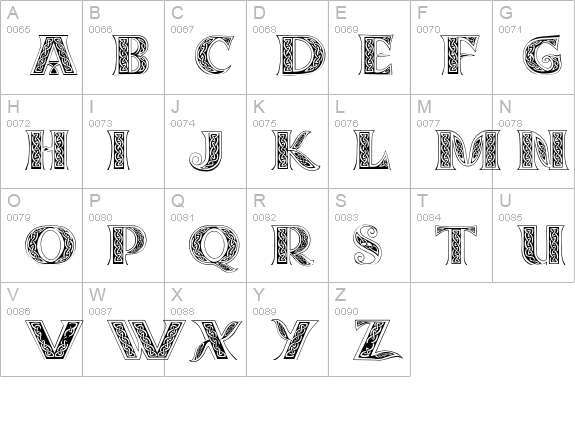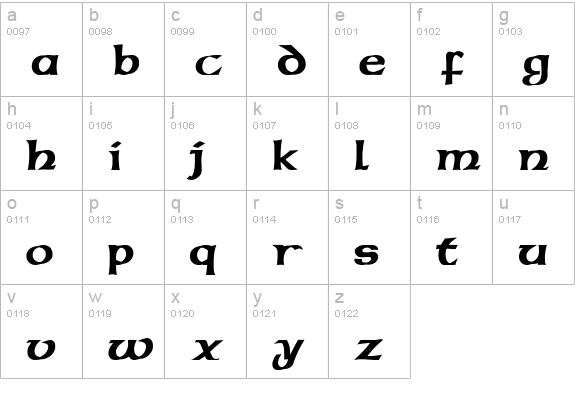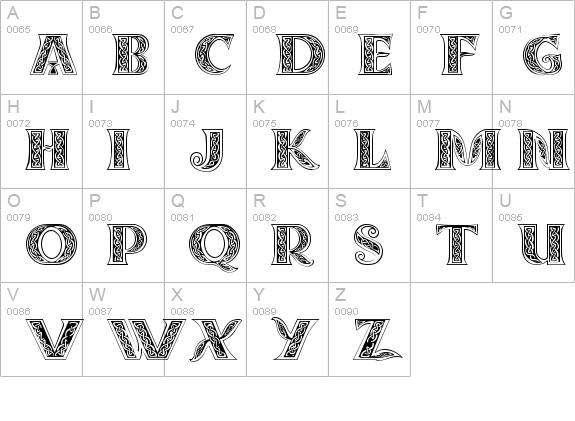
Celticmd Decorative w Drop Caps Font Details
Celticmd Decorative w Drop Caps font is a stunning and intricate typeface that exudes elegance and sophistication. The ornate Celtic-inspired design is perfect for adding a touch of old-world charm to your projects. The drop caps in this font are beautifully crafted, making them stand out and command attention. What's even better is that Celticmd Decorative w Drop Caps font is available for free download at FontsMarket.com. You can easily elevate your designs with this unique and eye-catching font without having to spend a dime. Whether you're working on invitations, posters, or any other creative project, this font will surely make a lasting impression. Download it today and add a touch of Celtic magic to your designs!